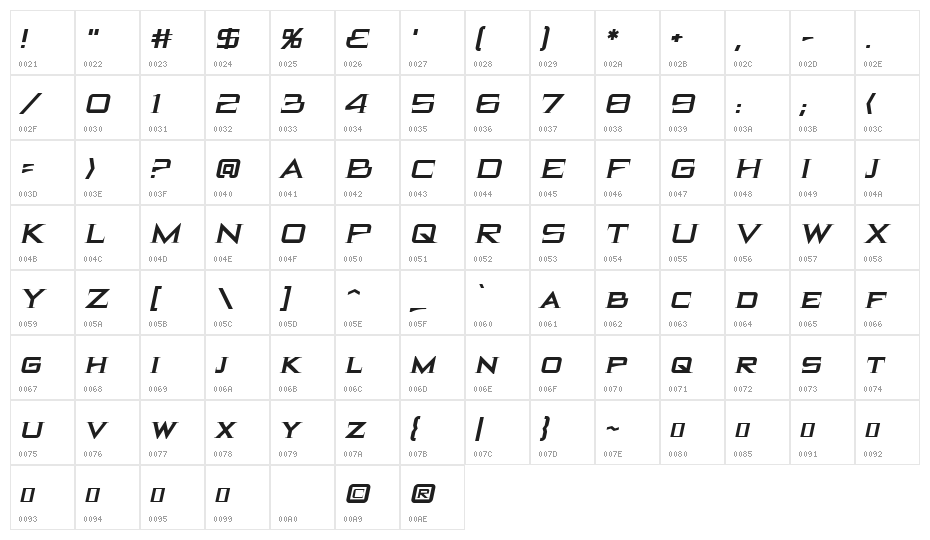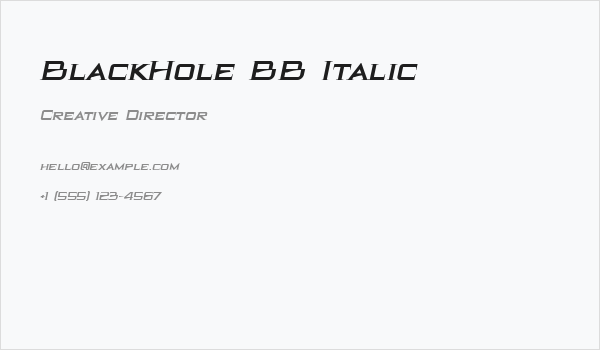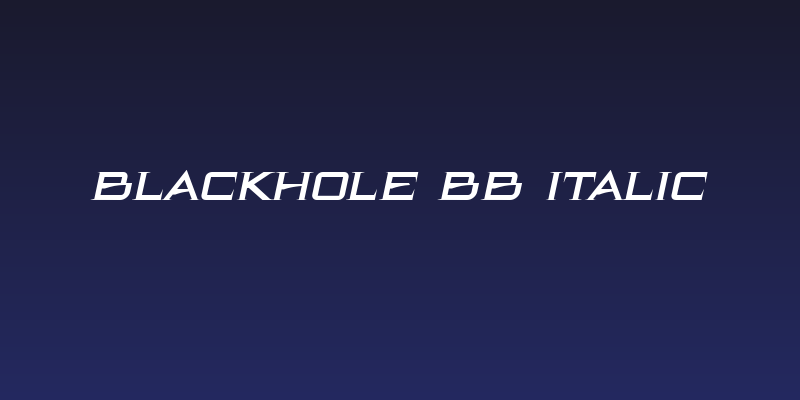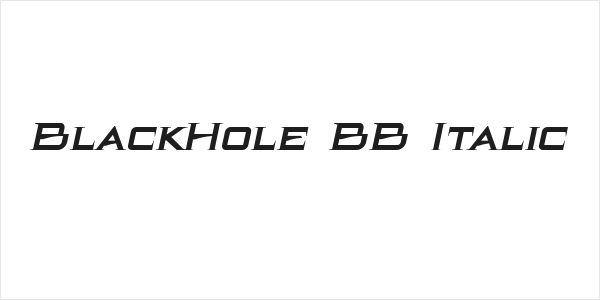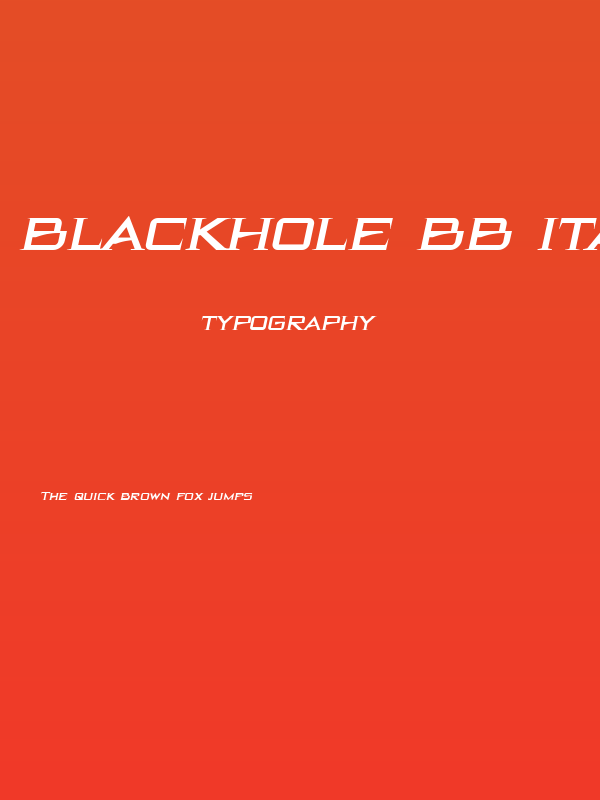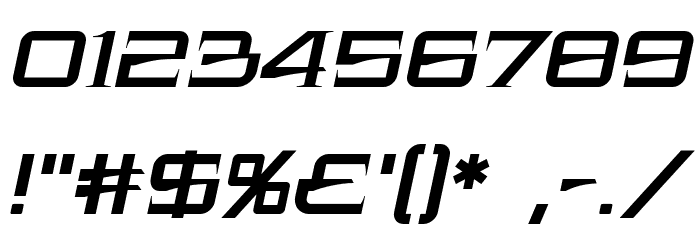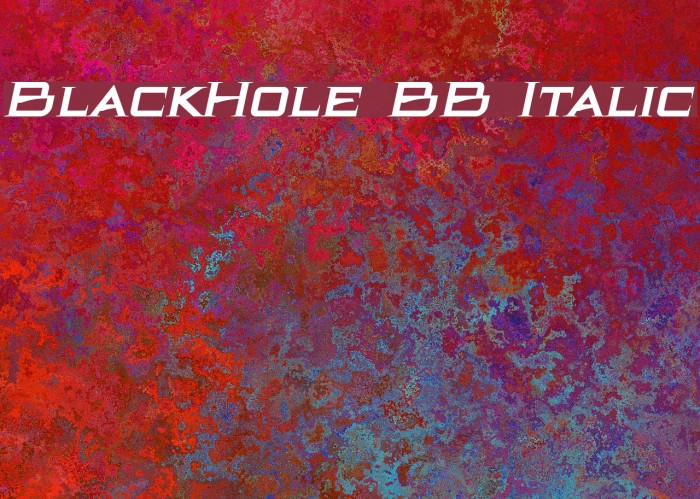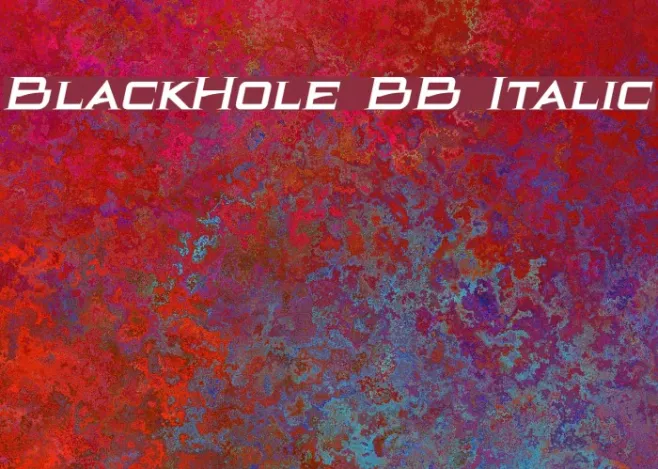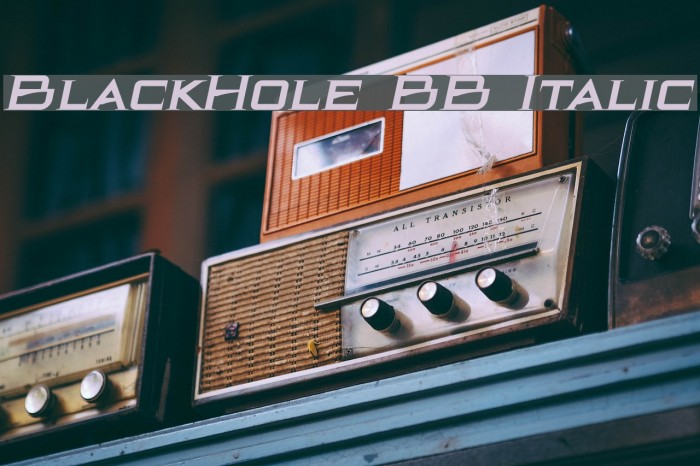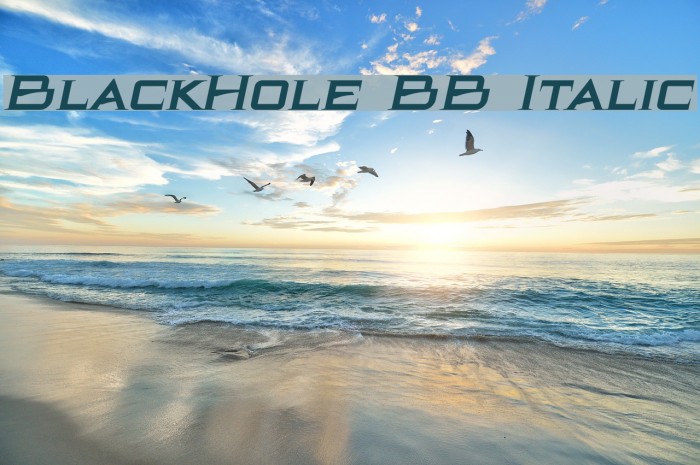
BlackHole BB Italic Font
BlackHole BB Italic Description
This font exhibits a dynamic and futuristic style, characterized by its sharp angles and italicized form. The letters are slanted forward, giving a sense of motion and speed. The strokes are bold and consistent, with a slight tapering at the ends, adding to its sleek appearance. The numbers and special characters maintain this angular design, ensuring uniformity across all elements. This font is ideal for projects that require a modern and edgy look, such as technology branding, sports team logos, or sci-fi themed designs.
| Overall Style | Futuristic, Dynamic |
| Use Case | Logos, Headlines, Posters |
| Proposed Projects | Ideal for technology branding, sports logos, sci-fi themes, and dynamic posters. |